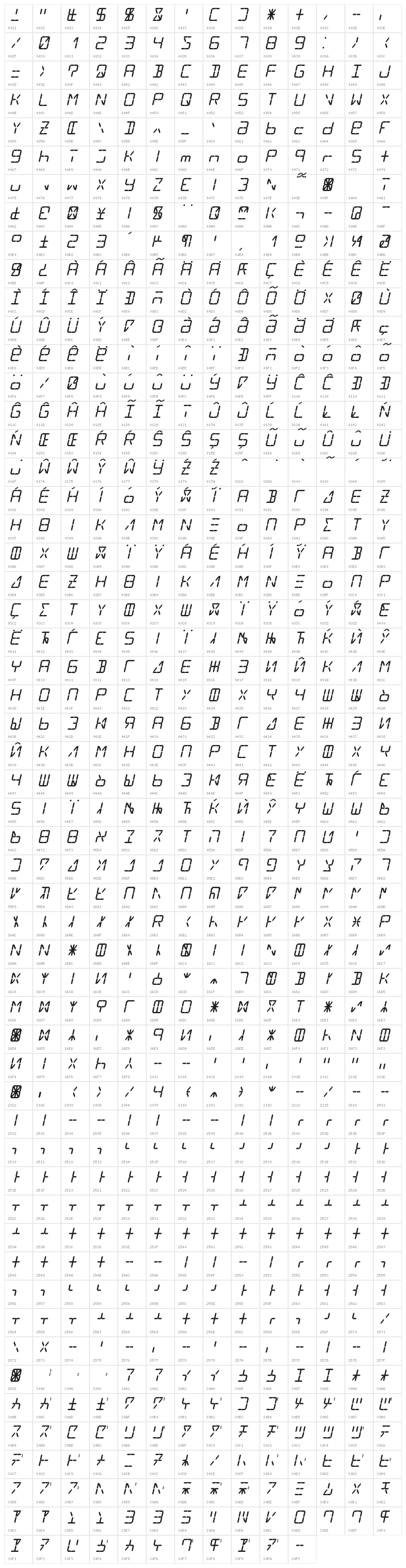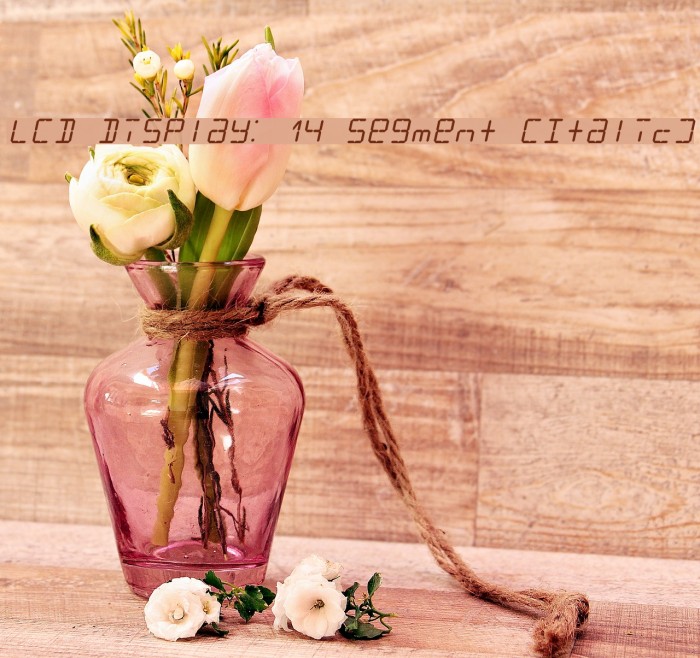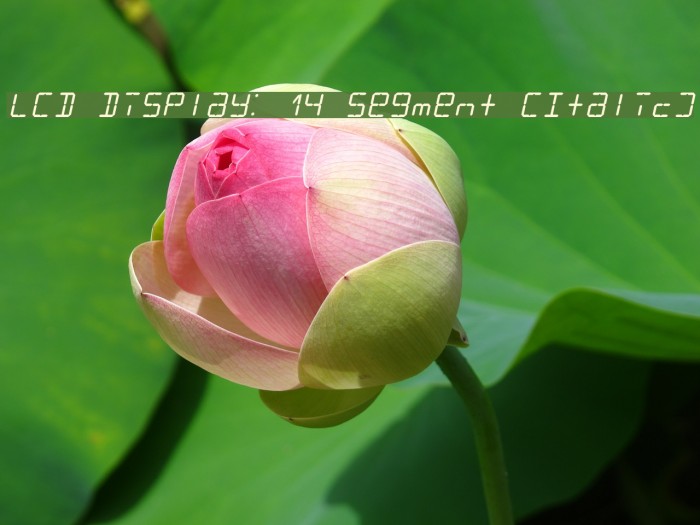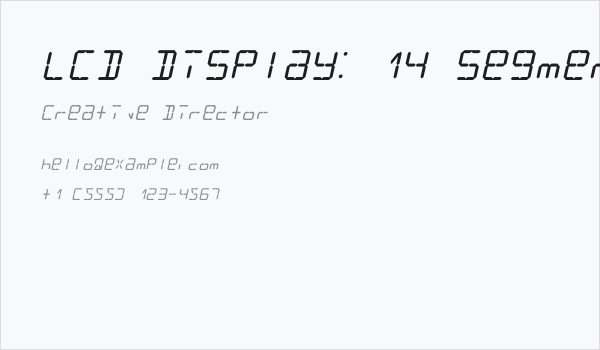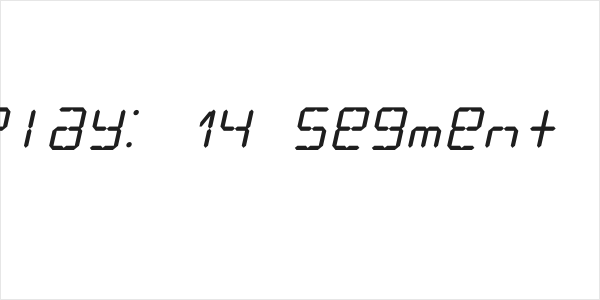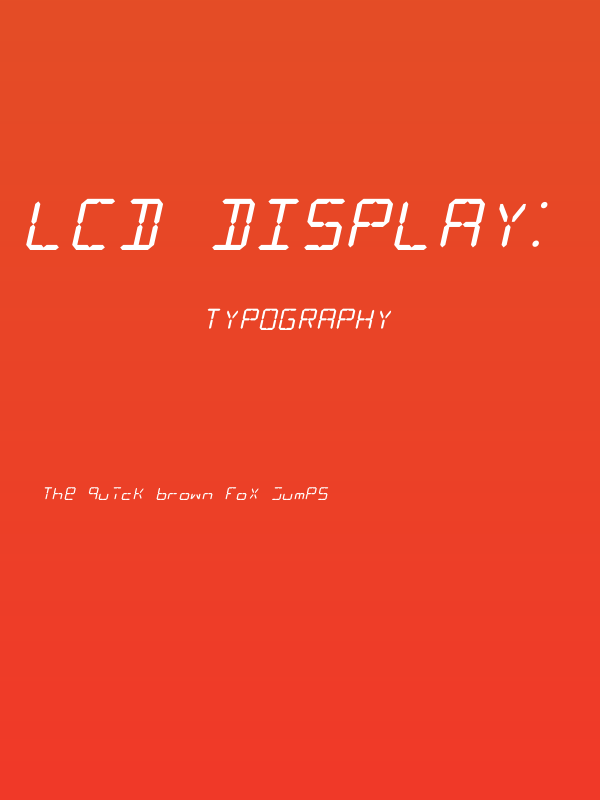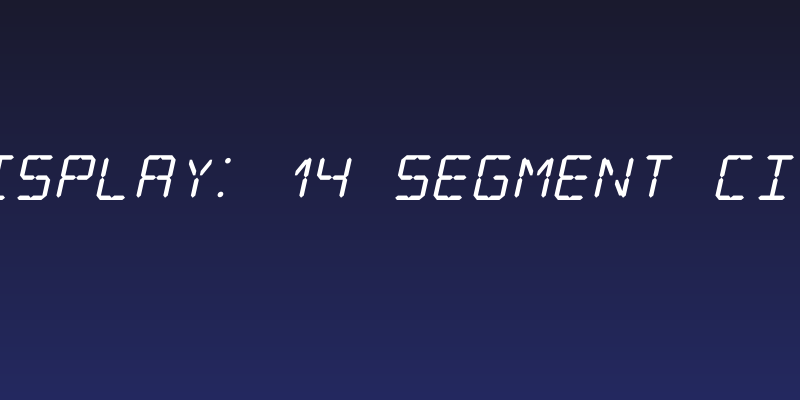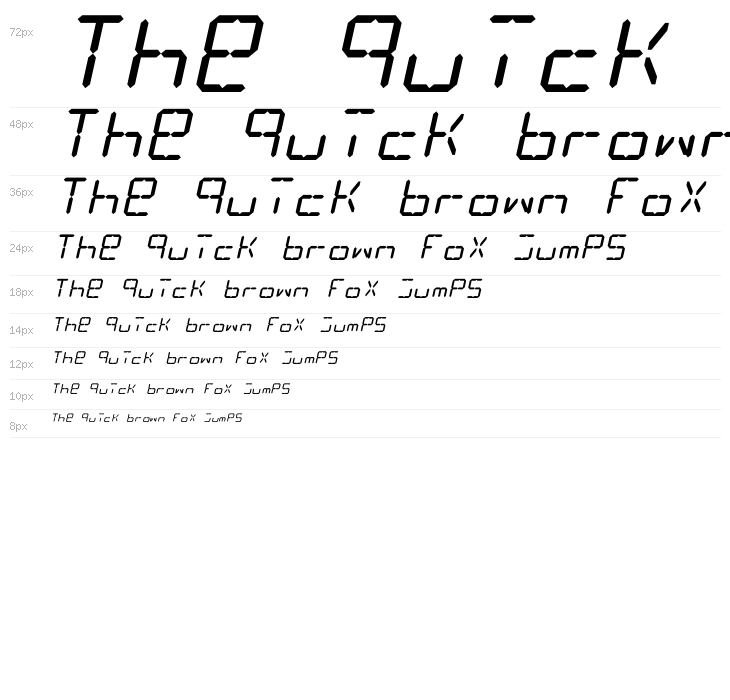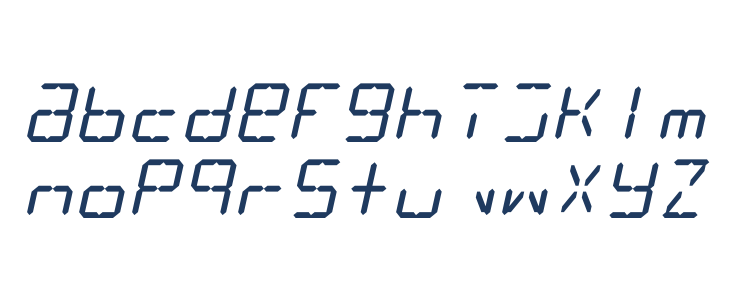
LCD Display: 14 Segment (Italic) Font
LCD Display: 14 Segment (Italic) Description
This font is a modern, digital-inspired typeface that mimics the appearance of a 14-segment LCD display. Each character is constructed with a series of straight lines and angles, creating a geometric and technical look. The italic style adds a dynamic and forward-leaning aspect, enhancing its futuristic feel. The font includes both uppercase and lowercase letters, numbers, and a variety of special characters. Its segmented design is reminiscent of digital clocks and electronic displays, making it ideal for conveying a sense of technology and innovation.
| Use Case | Headlines, Digital displays, Tech branding |
| Proposed Projects | Ideal for digital interfaces, tech-themed designs, electronic device branding, and futuristic posters. |